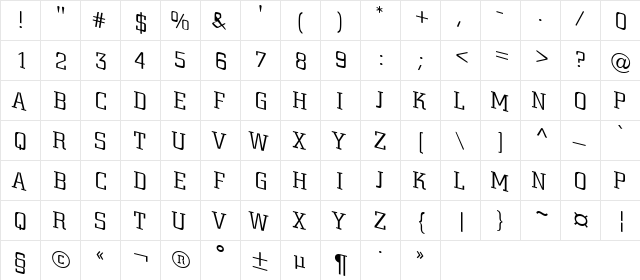
a_CityNovaTtlSpDnLt Regular
Design Context for a_CityNovaTtlSpDnLt Typeface
a_CityNovaTtlSpDnLt is a composed and adaptable typeface that performs quietly and consistently across a wide range of design contexts.